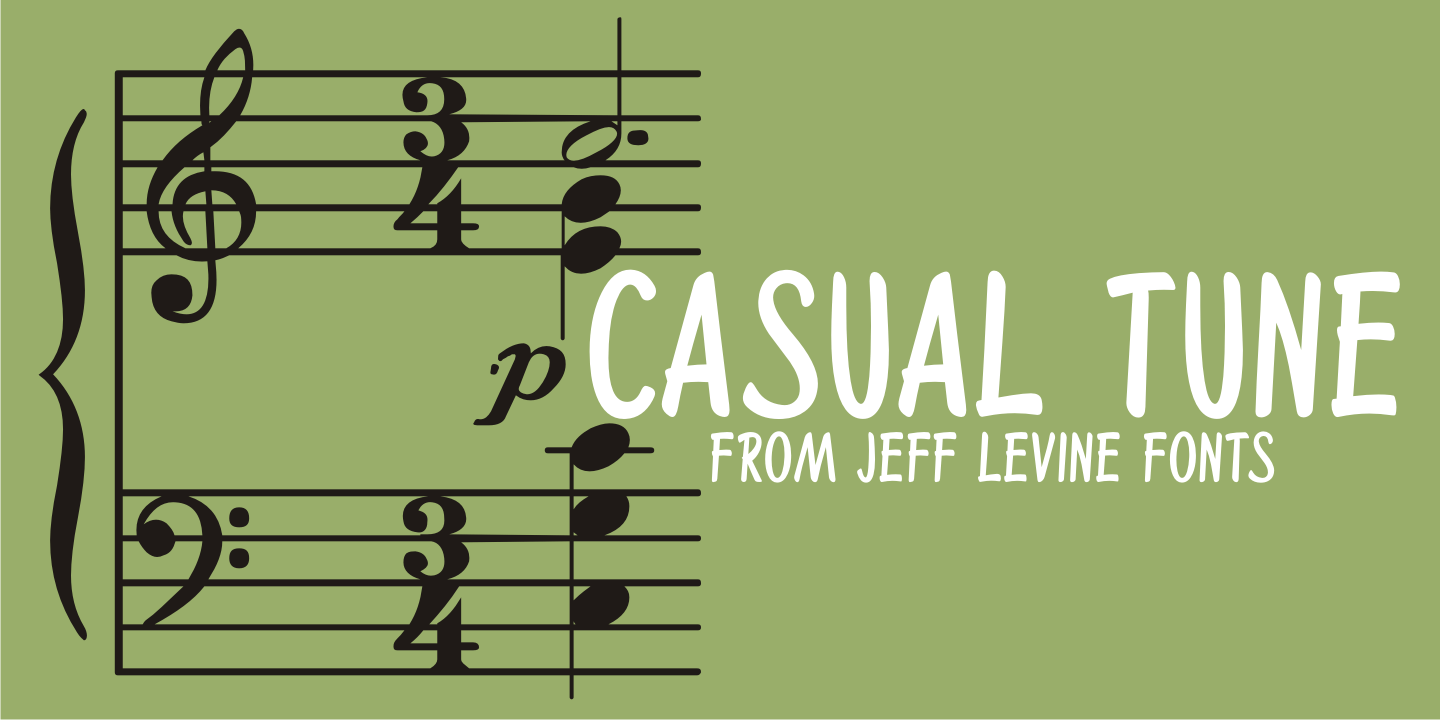
Casual Tune
Brush-style lettering has been a perennial favorite for designers and sign painters because it brings to mind casual, relaxed or friendly themes.
A vintage piece of sheet music called 'Pretty Butterfly” by Sunny Skylar features the titled hand lettered in such a casual design, and became the inspiration for Casual Tune JNL.
Casual Tune JNL Regular by Jeff Levine Fonts